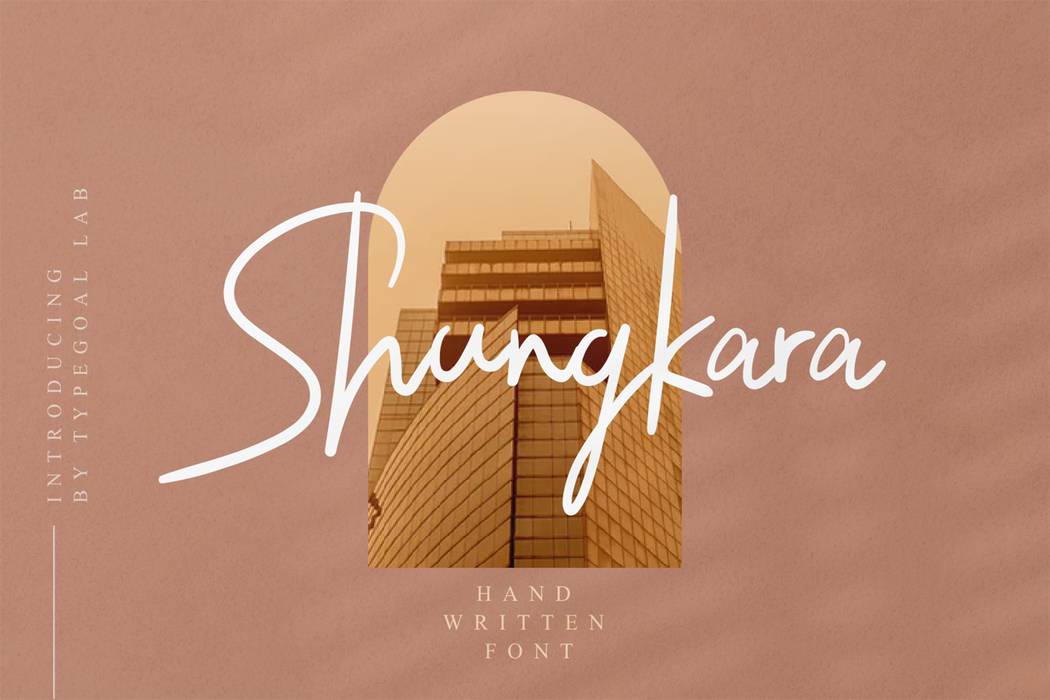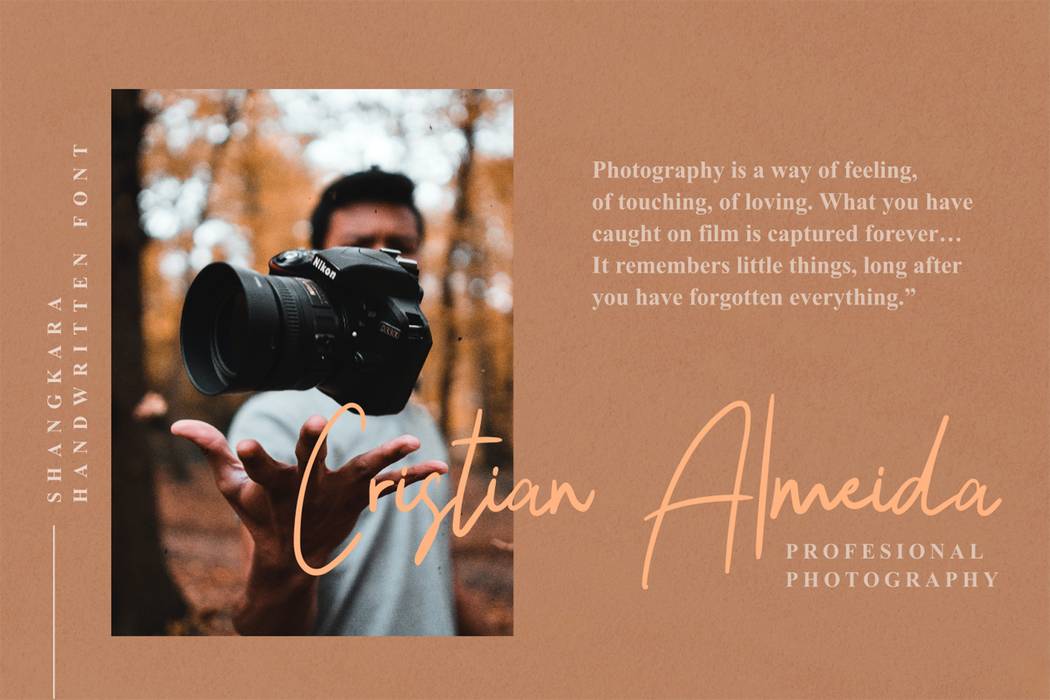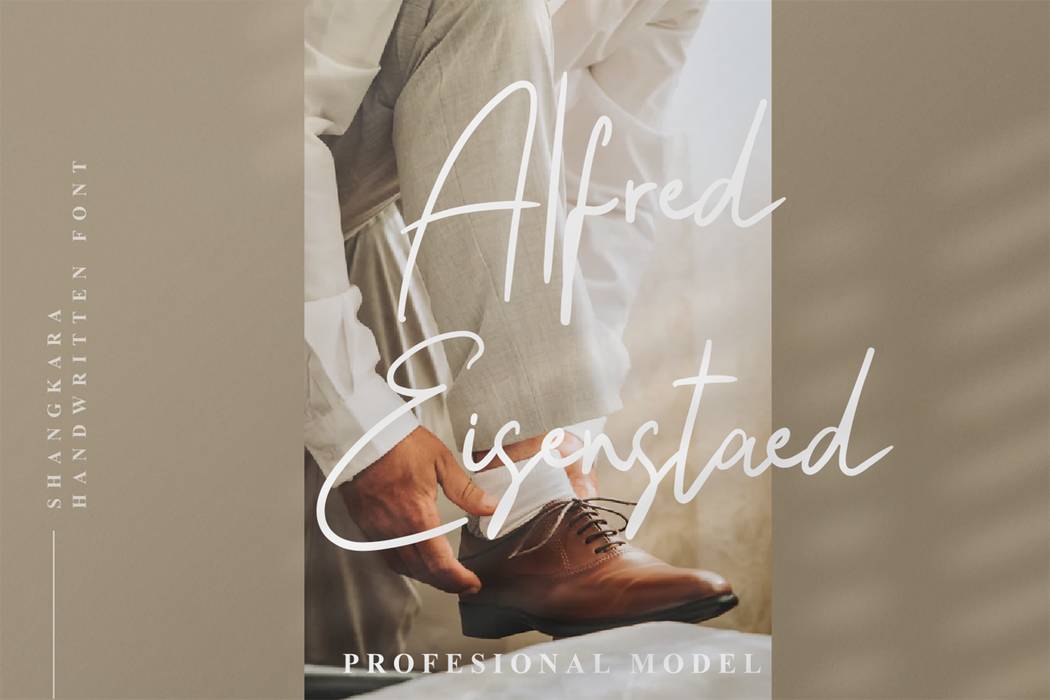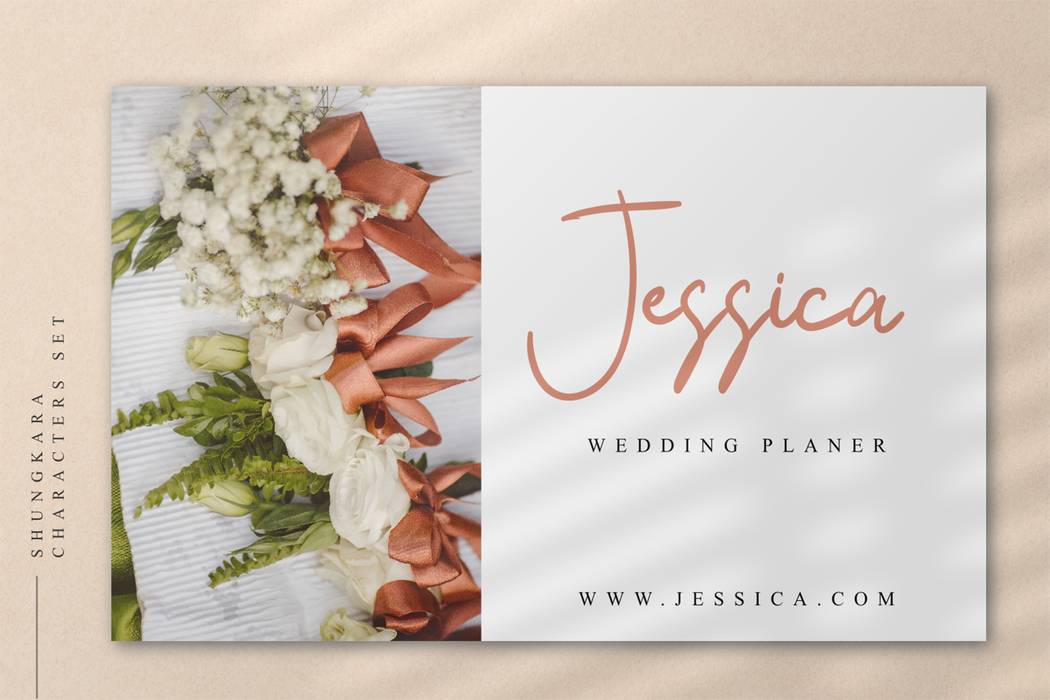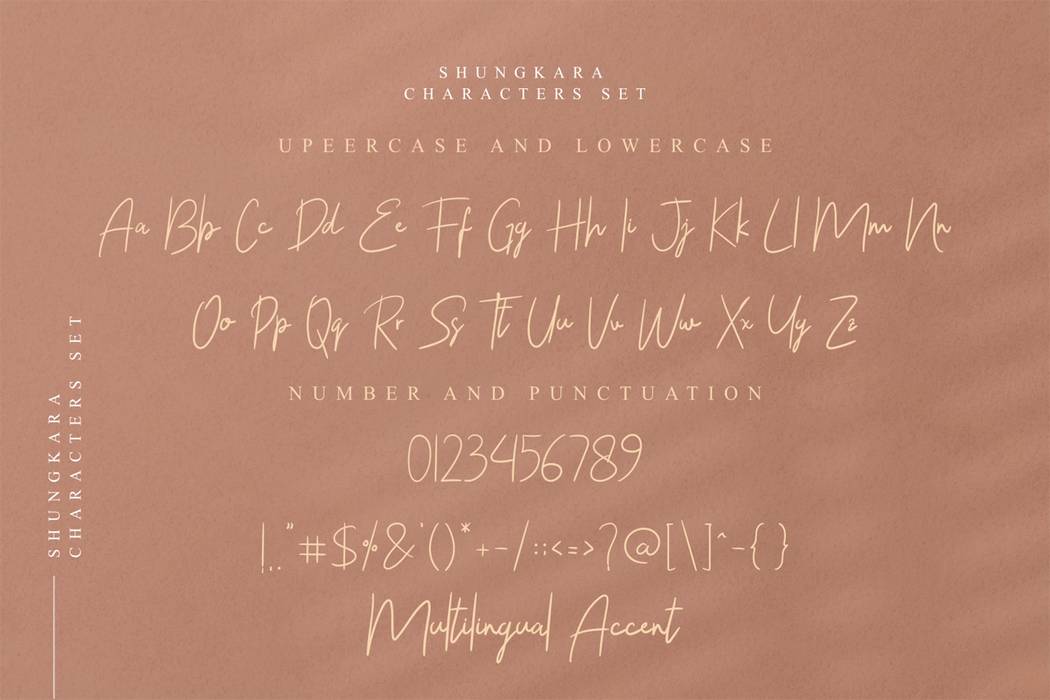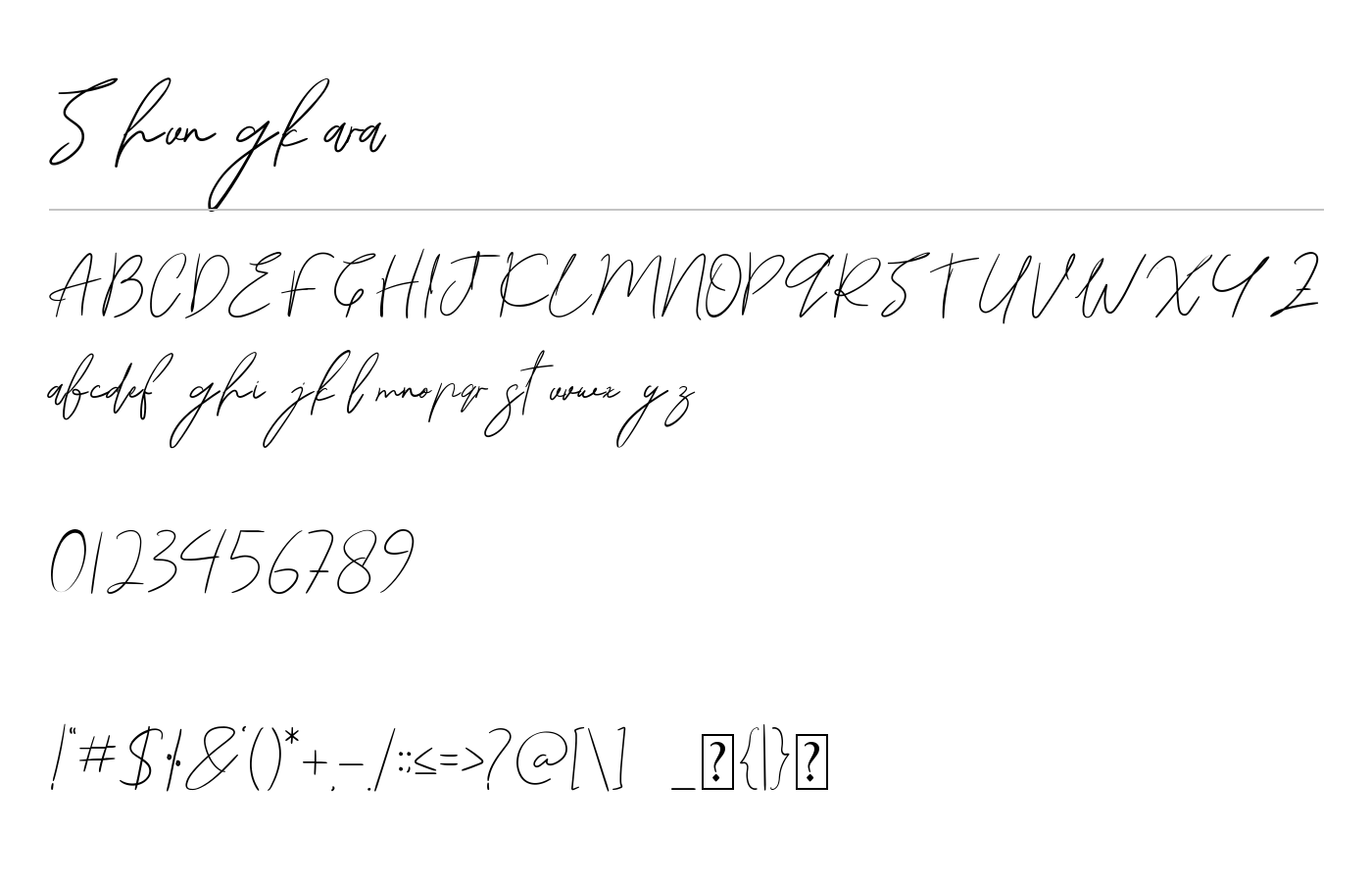
Shungkara is an elegant, handwritten script font characterized by its slender, flowing strokes and a natural, personal touch. Its tall, airy letterforms with subtle variations in line thickness give it a modern yet delicate feel, making it perfect for creative branding, invitations, and stylish editorial designs where a graceful, sophisticated vibe is desired.
Shungkara Font
About Shungkara Font
| Font family | Shungkara Font |
| Release date | 2021-05-20 |
| Designer | Typegoals |